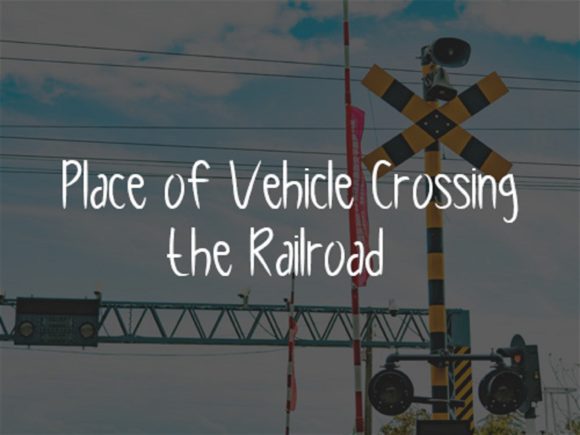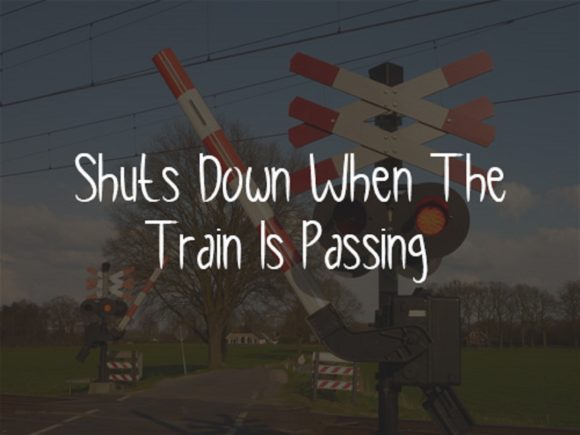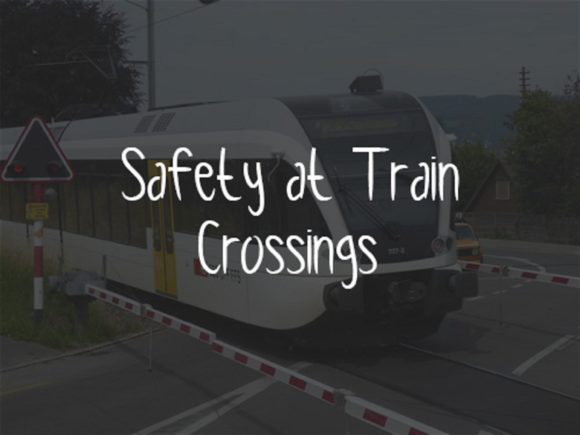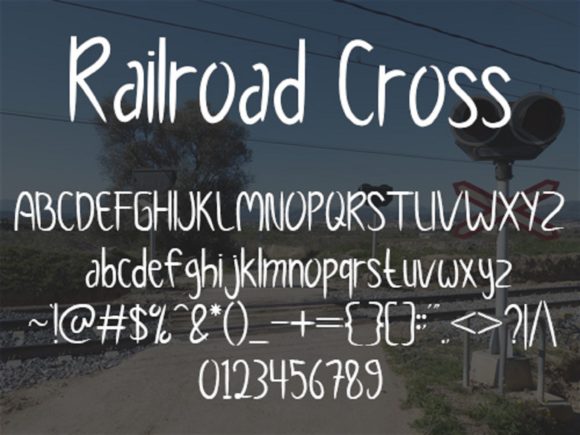
About Railroad Cross Font
Railroad Cross is a sweet and friendly handwritten font. Its natural and unique style makes it incredibly fitting to a large pool of designs. The only limit is your imagination!